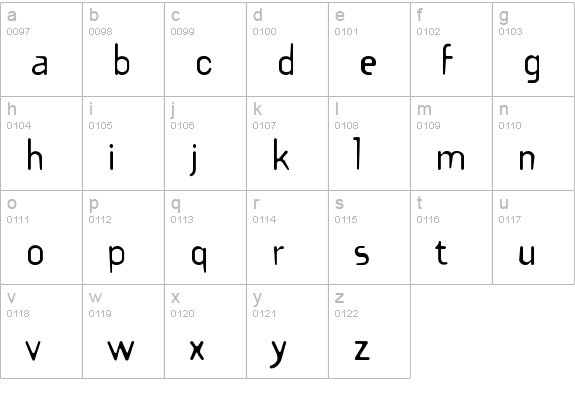
TemplateGothic Font Details
TemplateGothic font is a stunningly sleek and sophisticated typeface that exudes a modern and avant-garde vibe. With its clean lines, sharp edges, and geometric shapes, this font is perfect for creating eye-catching designs that demand attention. The versatility of TemplateGothic font is unmatched, making it suitable for a wide range of projects. Whether you're designing a logo, a website, a poster, or even a book cover, this font will effortlessly enhance your design and give it that extra touch of elegance. But what truly sets TemplateGothic font apart is the fact that it is free. Yes, you heard that right - this extraordinary font is freely available to download at FontsMarket.com. We believe that exceptional design should be accessible to everyone, and that's why we are offering this font completely free of charge. By downloading TemplateGothic font, you not only gain access to a top-notch typeface that will elevate your designs, but you also get the satisfaction of knowing that you are making a smart and budget-friendly choice. Plus, with its extensive character set and multiple weights, this font provides endless creative possibilities. So why wait? Head over to FontsMarket.com now and grab your free download of TemplateGothic font. Unleash your creativity and let this remarkable font elevate your designs to new heights.